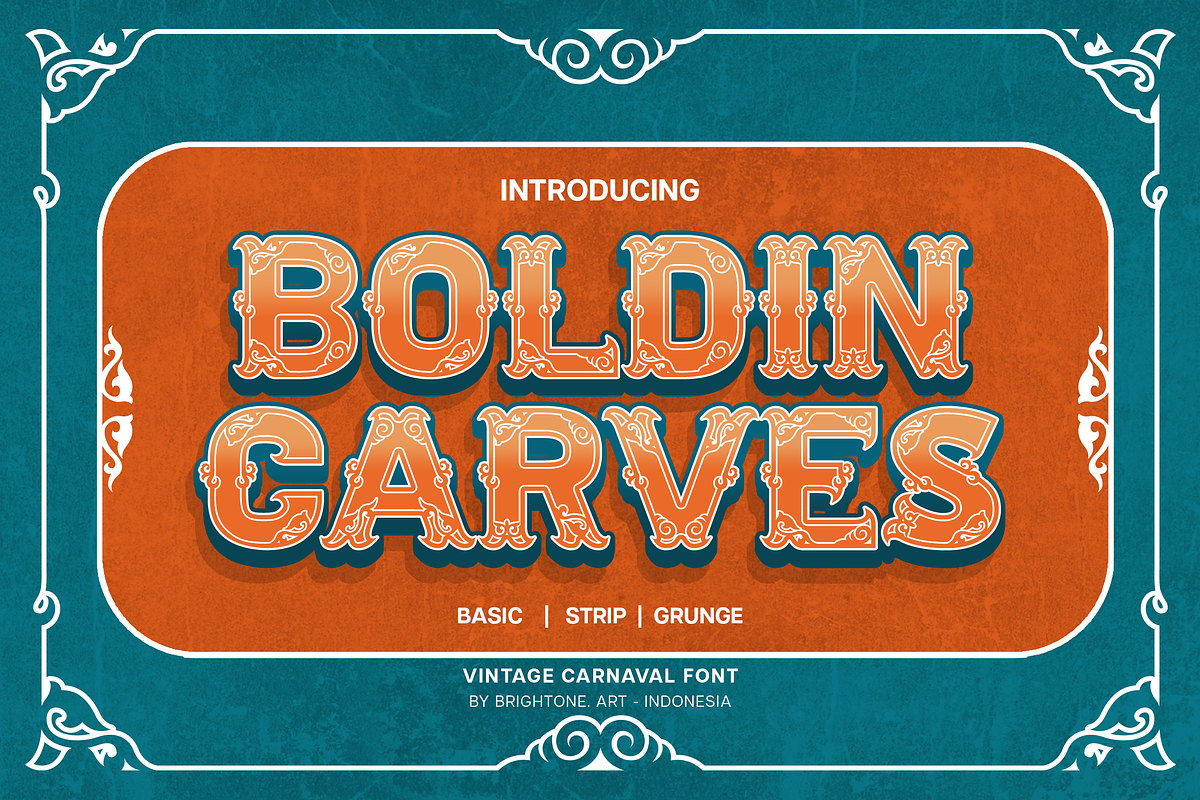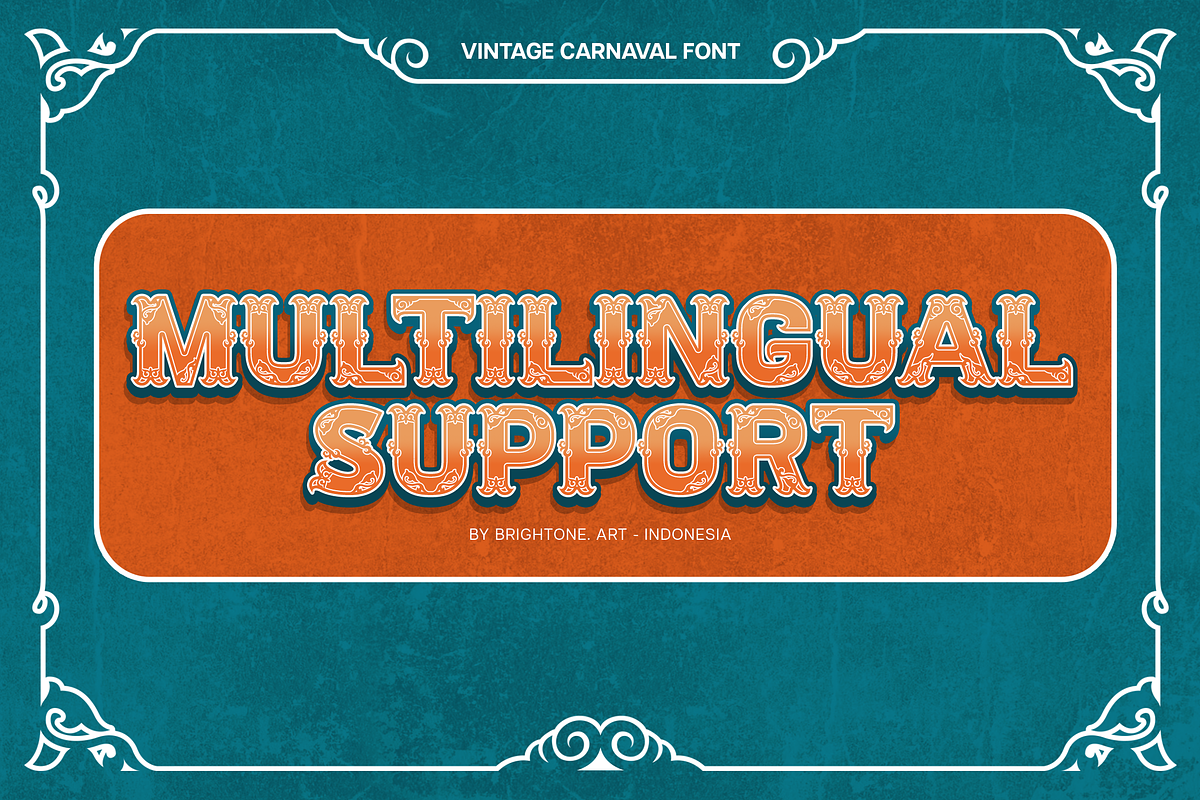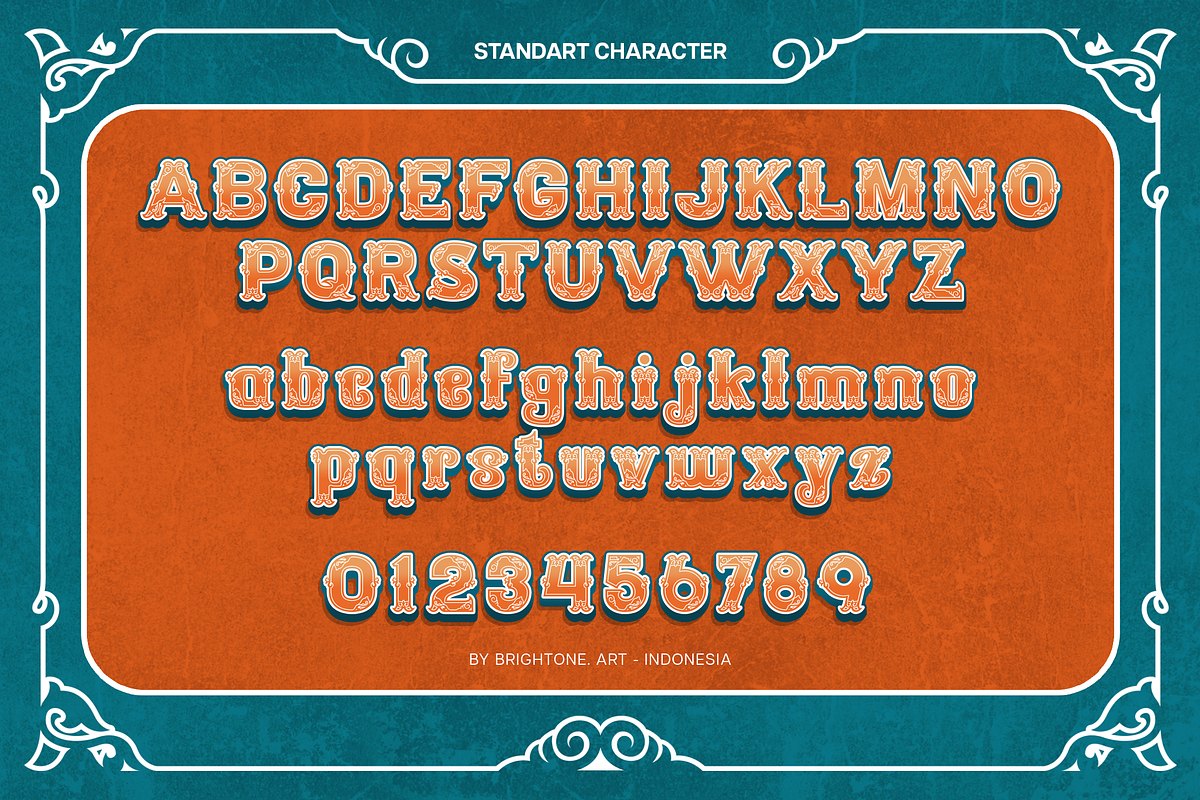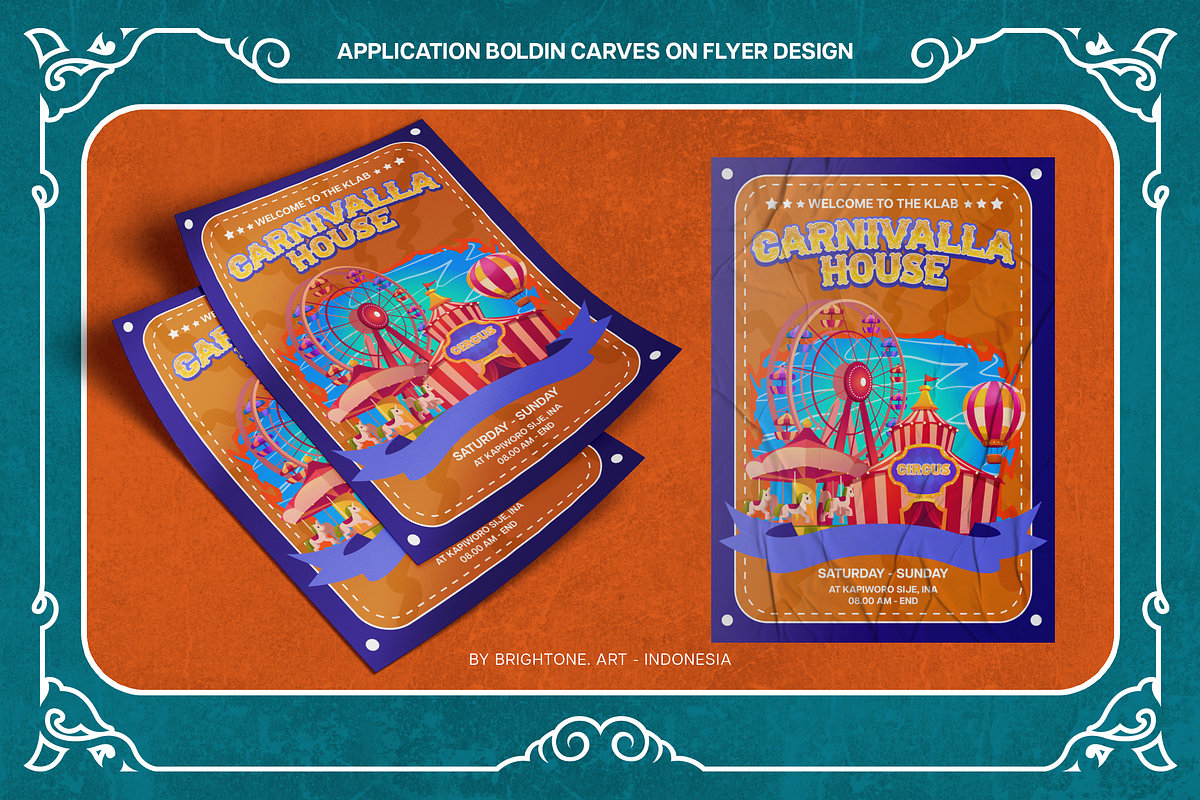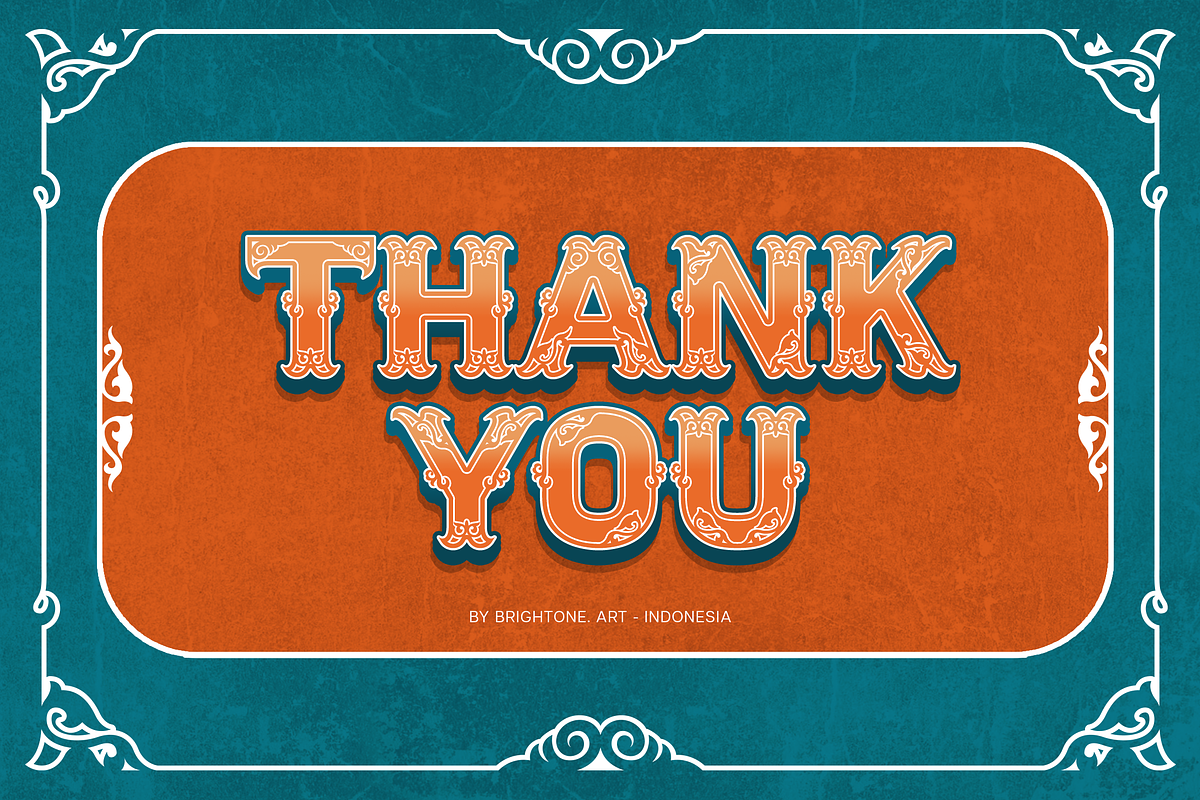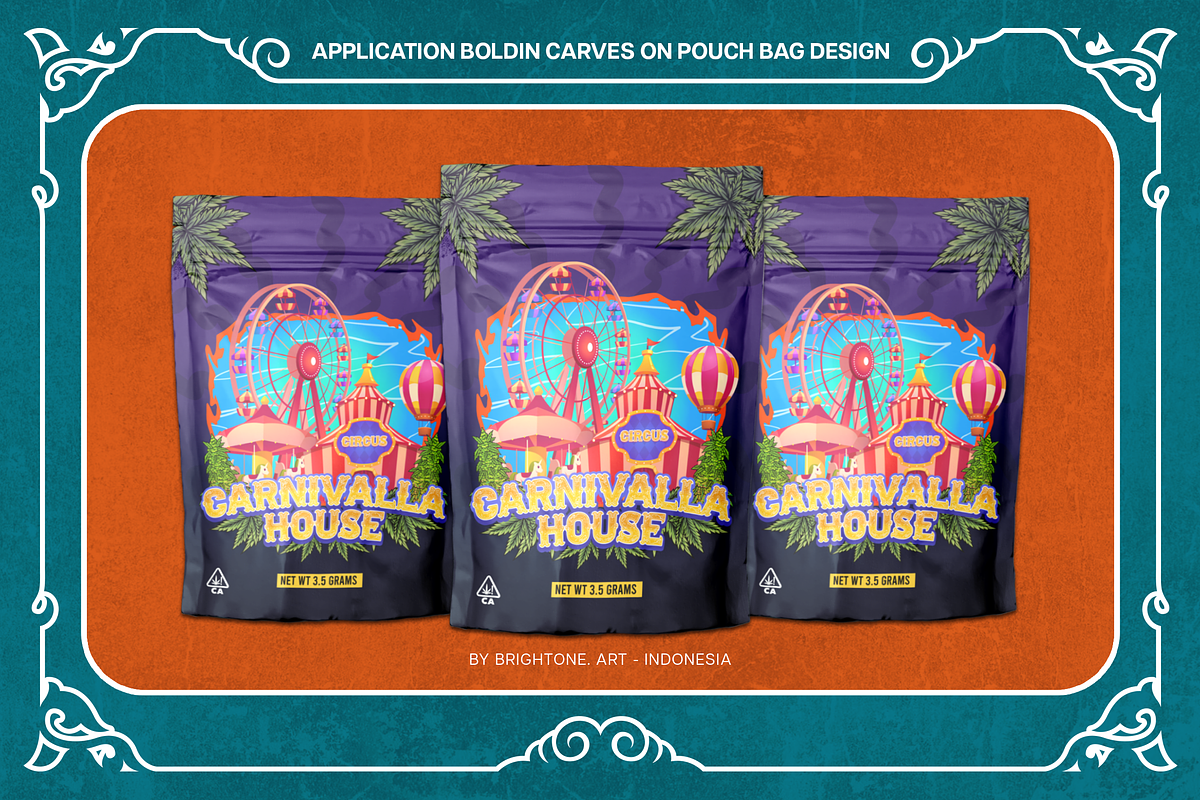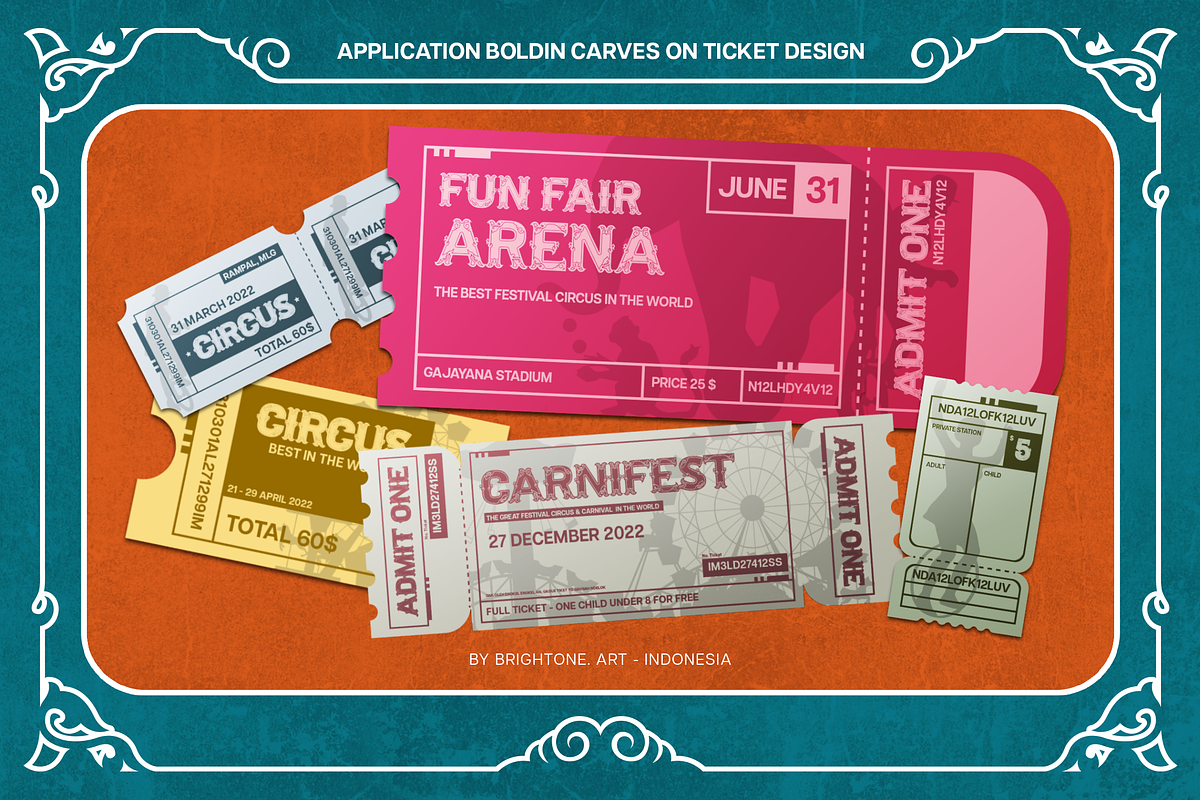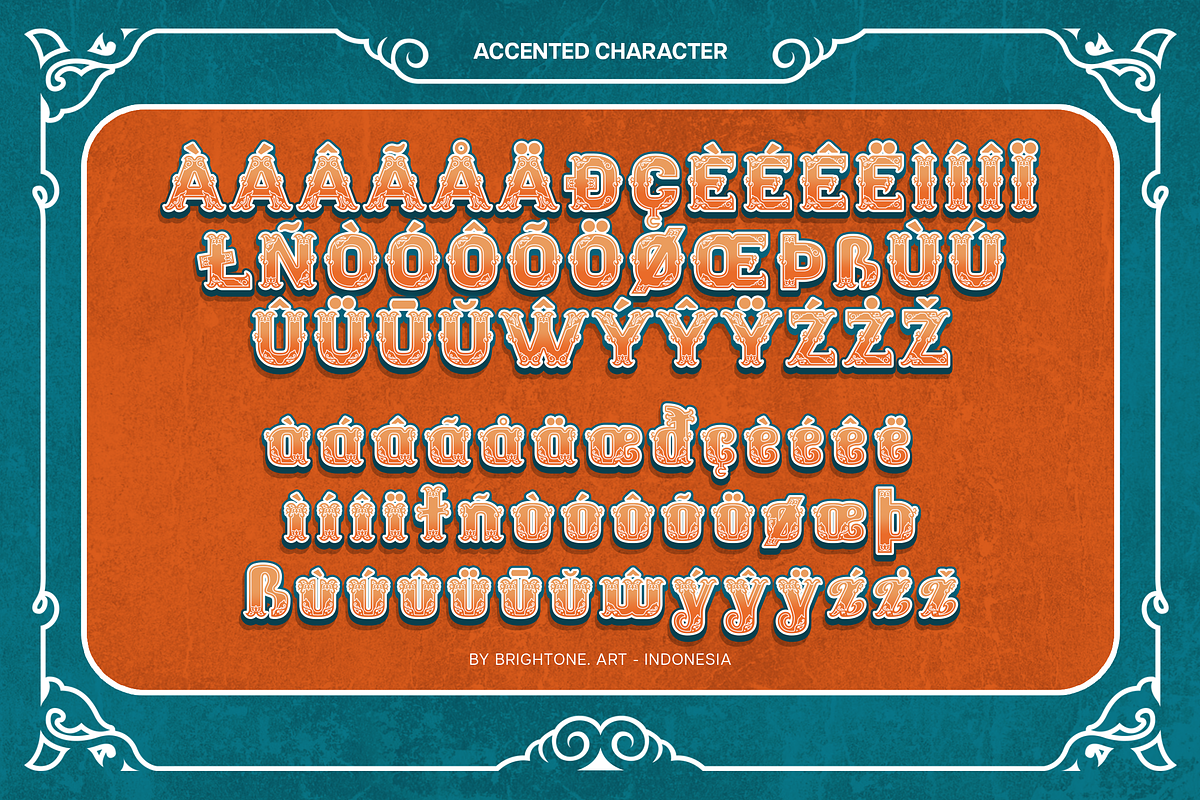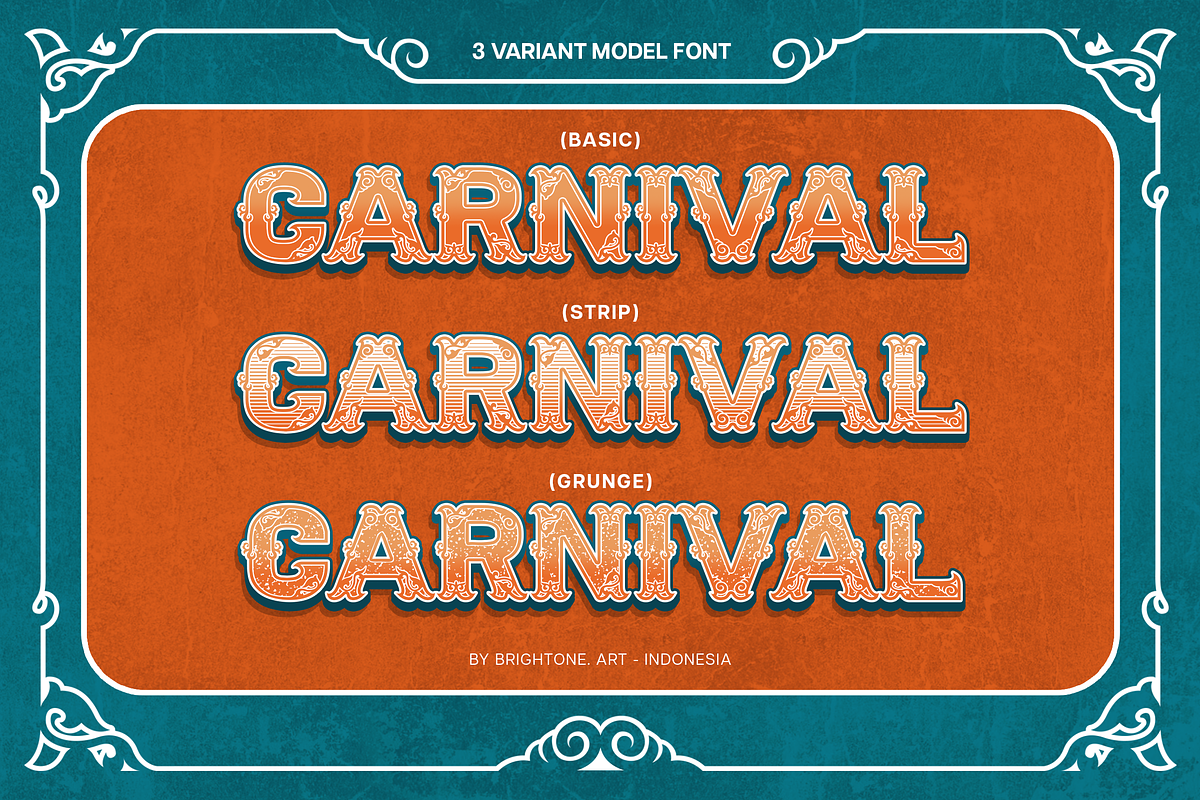
Boldin Carves - Slab Carnival Font
BOLDIN CARVES is carnival font based on slab serif font with some decorative style, these font includes:
- Uppercase and Lowercase Characters, Numbers and Punctuation.
- Multilingual Support (Eastern, Central and Western European countries).
BOLDIN CARVES comes in 3 different styles:
- BOLDIN CARVES - Basic
- BOLDIN CARVES - Strip
- BOLDIN CARVES - Grunge
BOLDIN CARVES font is suitable to use for all purpose for your logo lettering, logo, label, packaging, sticker, branding and many more.